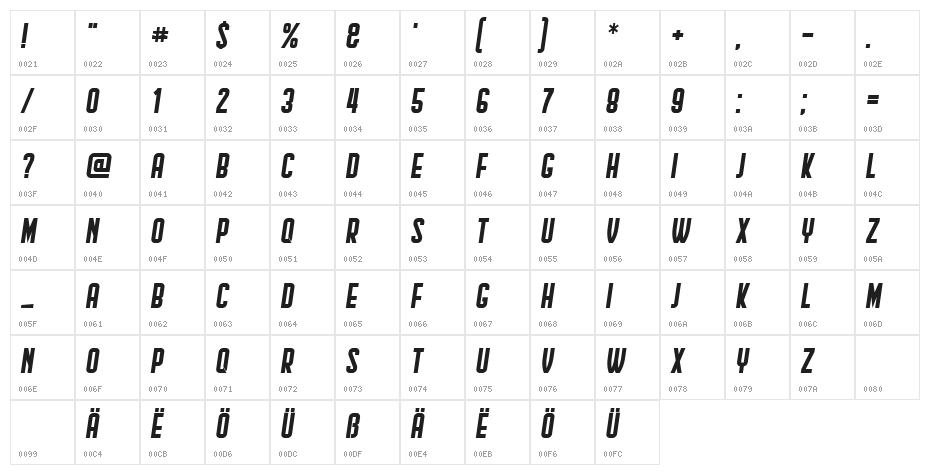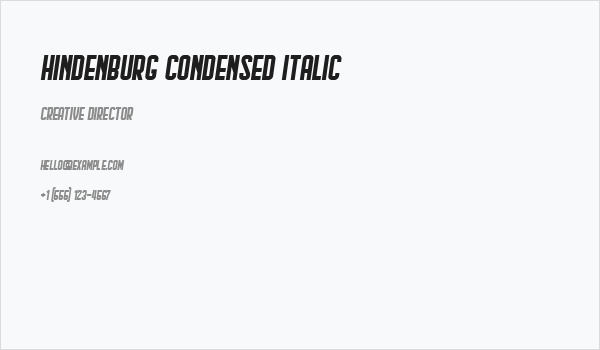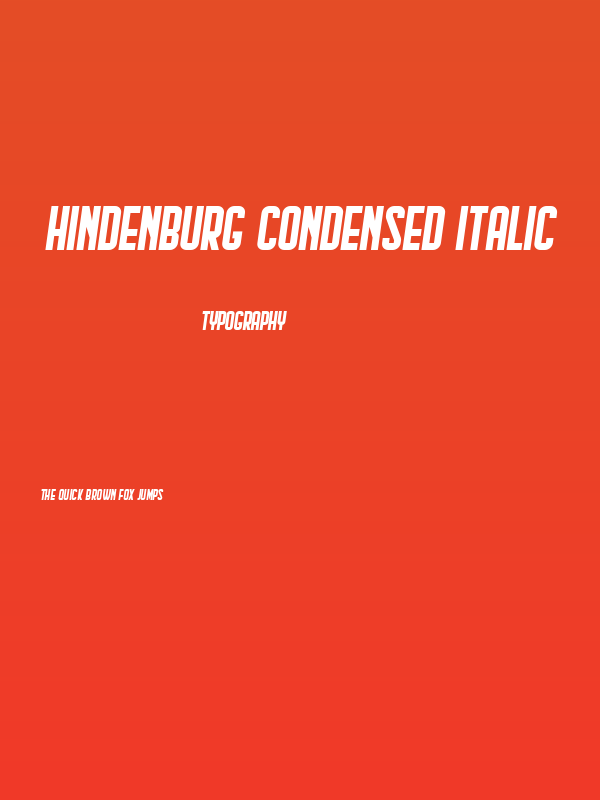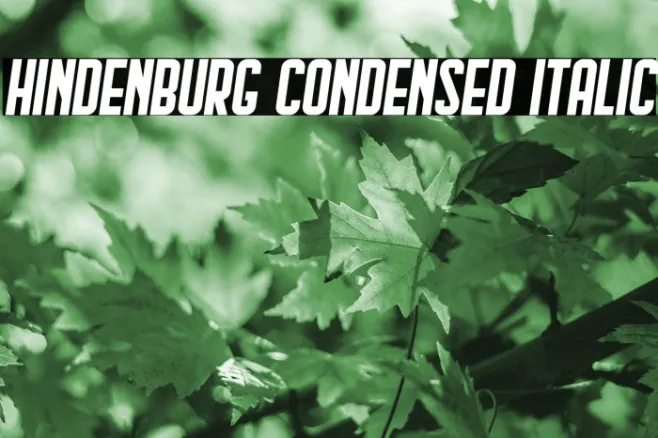
Hindenburg Condensed Italic Font
Hindenburg Condensed Italic Description
This font features a bold and condensed style with a noticeable italic slant, giving it a dynamic and forward-moving appearance. The uppercase and lowercase letters maintain a consistent height, contributing to its uniformity and readability. The numbers and special characters are designed to match the overall aesthetic, with sharp angles and clean lines. The condensed width allows for efficient use of space, making it suitable for headlines and impactful text. The font's modern and assertive style makes it ideal for projects that require a strong visual presence.
| Proposed Projects | Ideal for headlines, posters, branding, and advertising where a strong, impactful font is needed. |